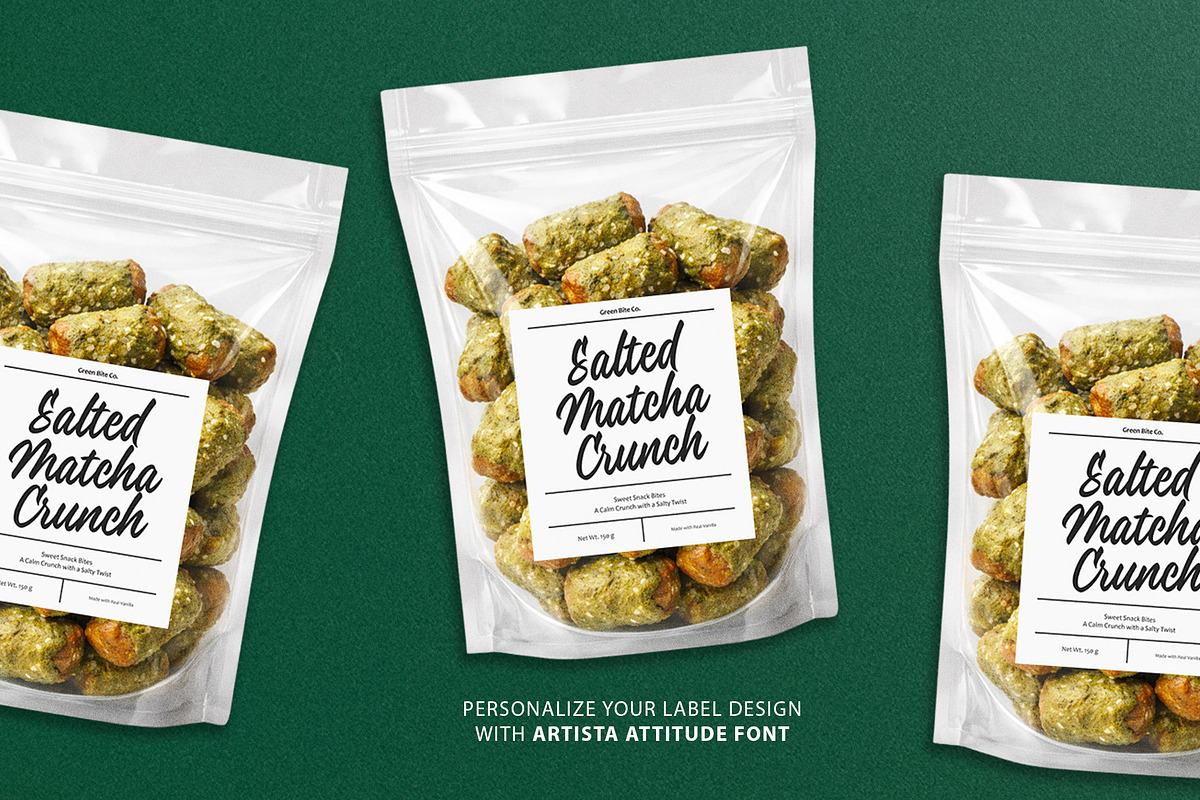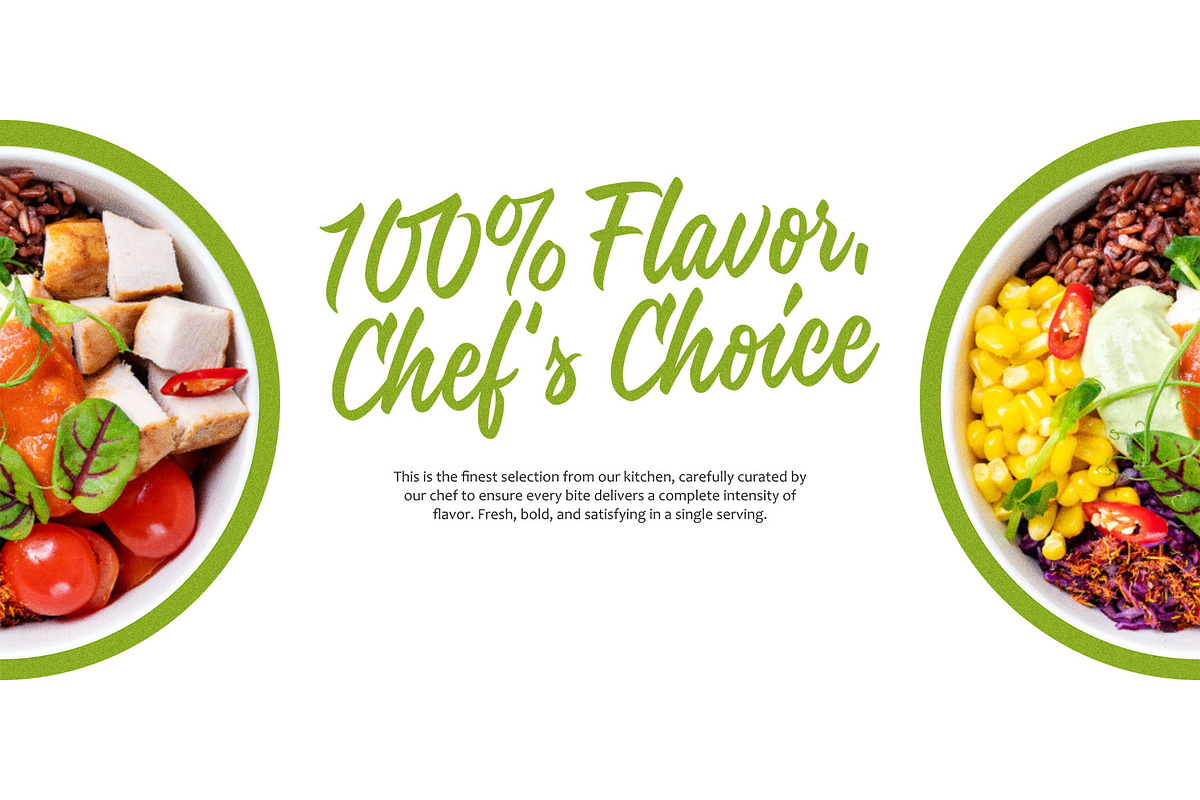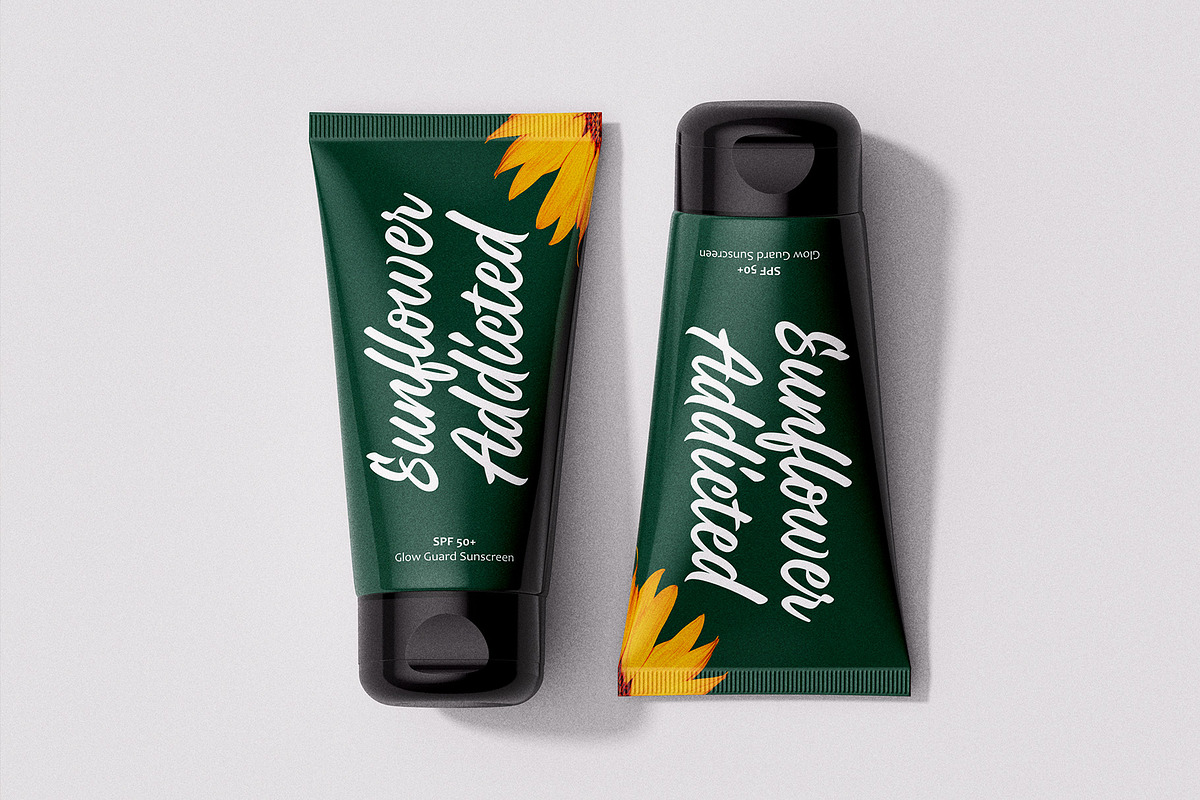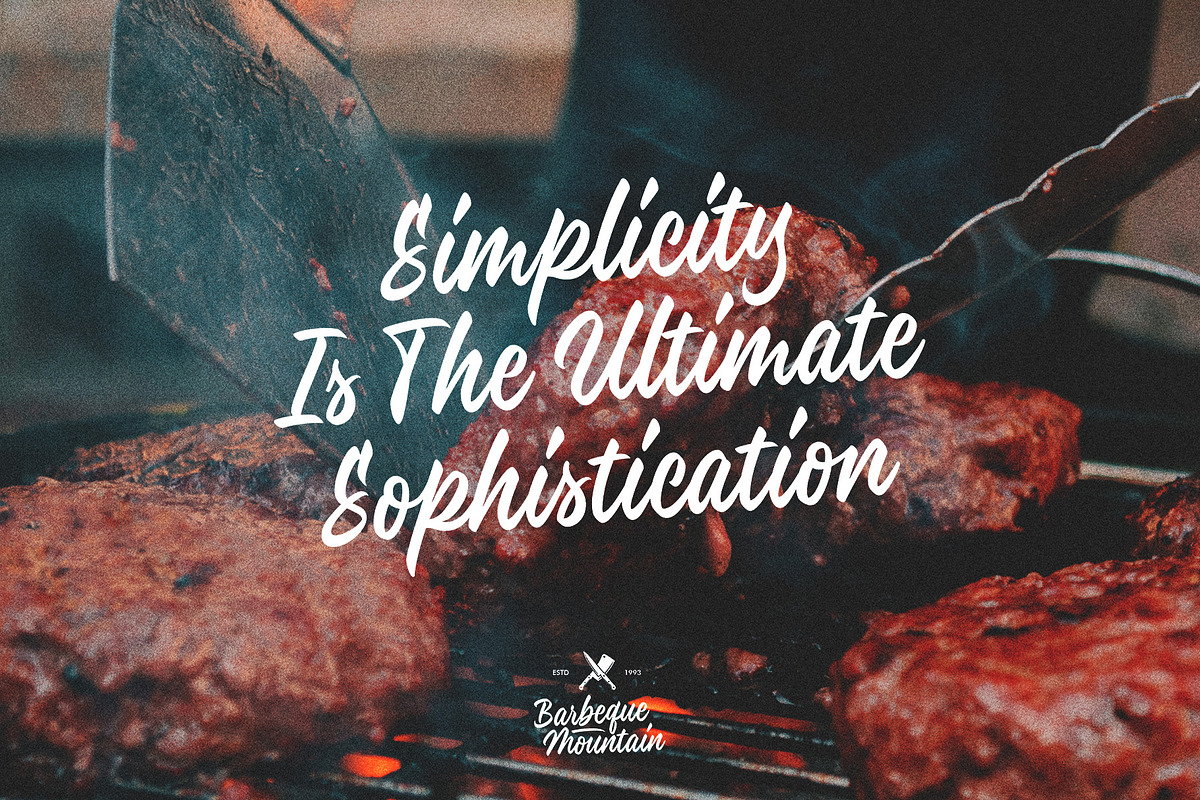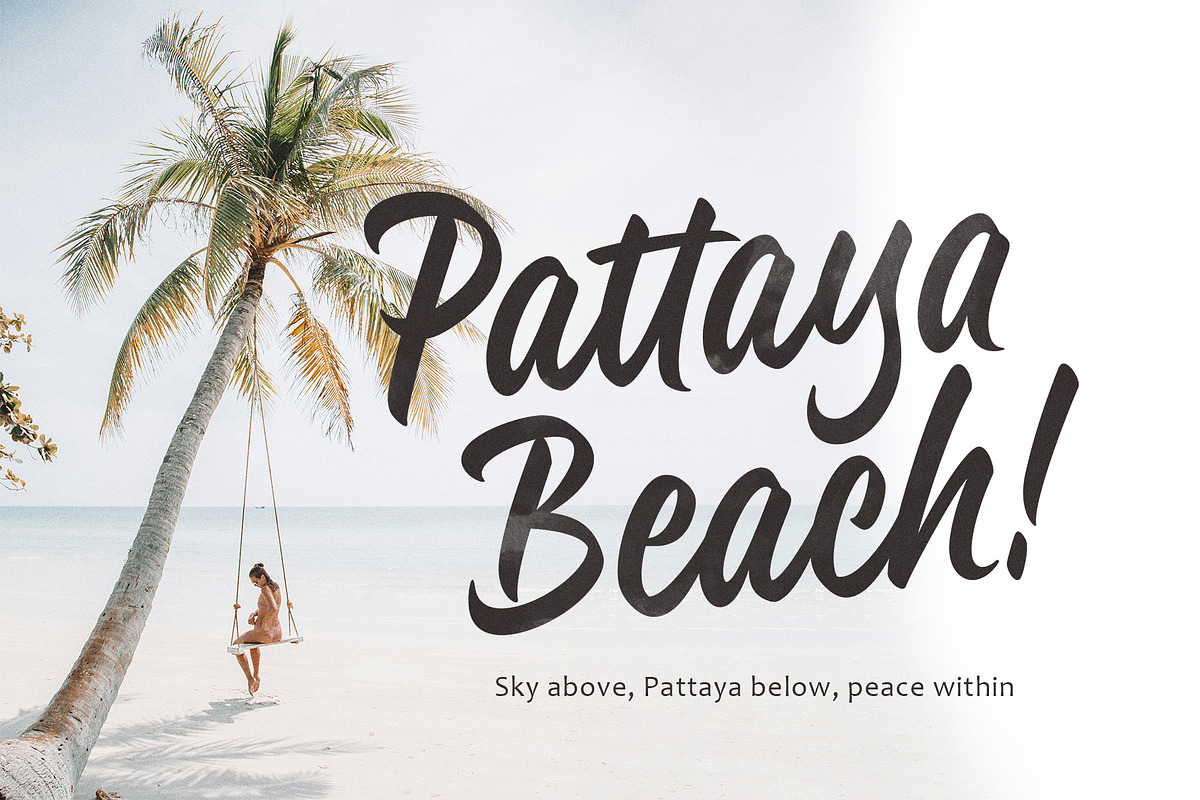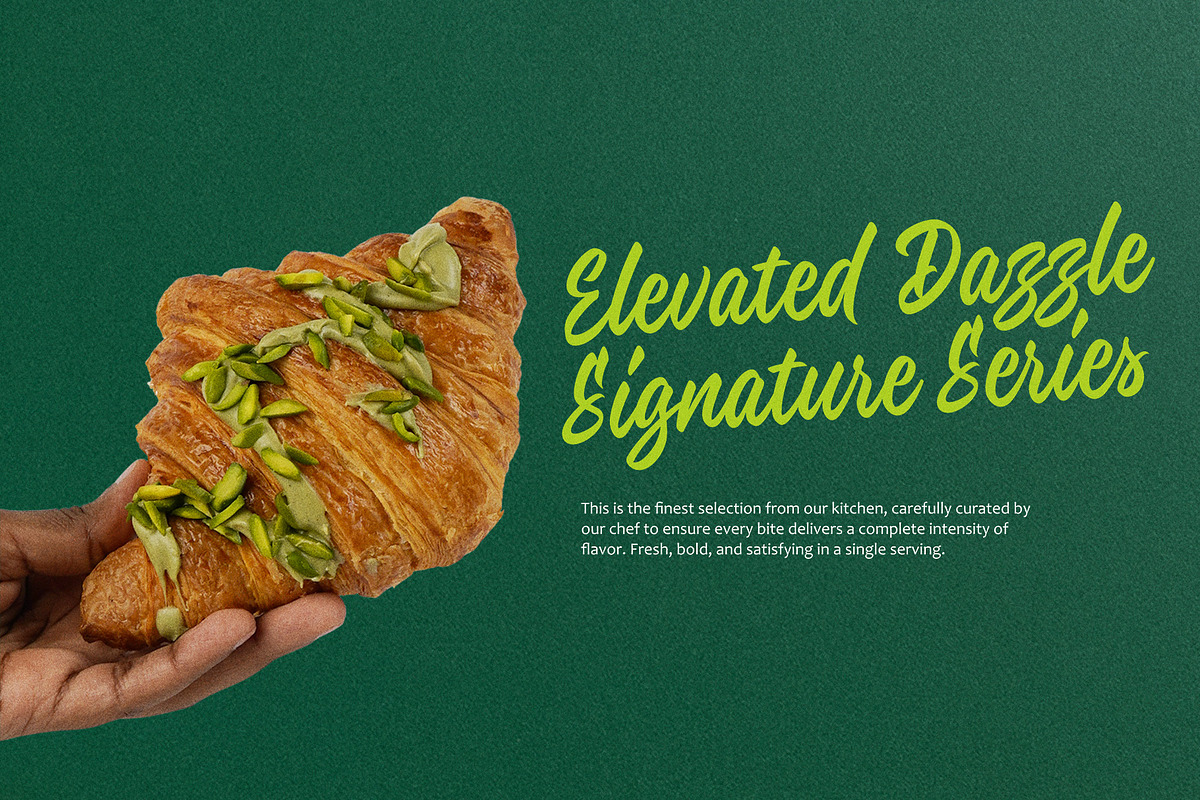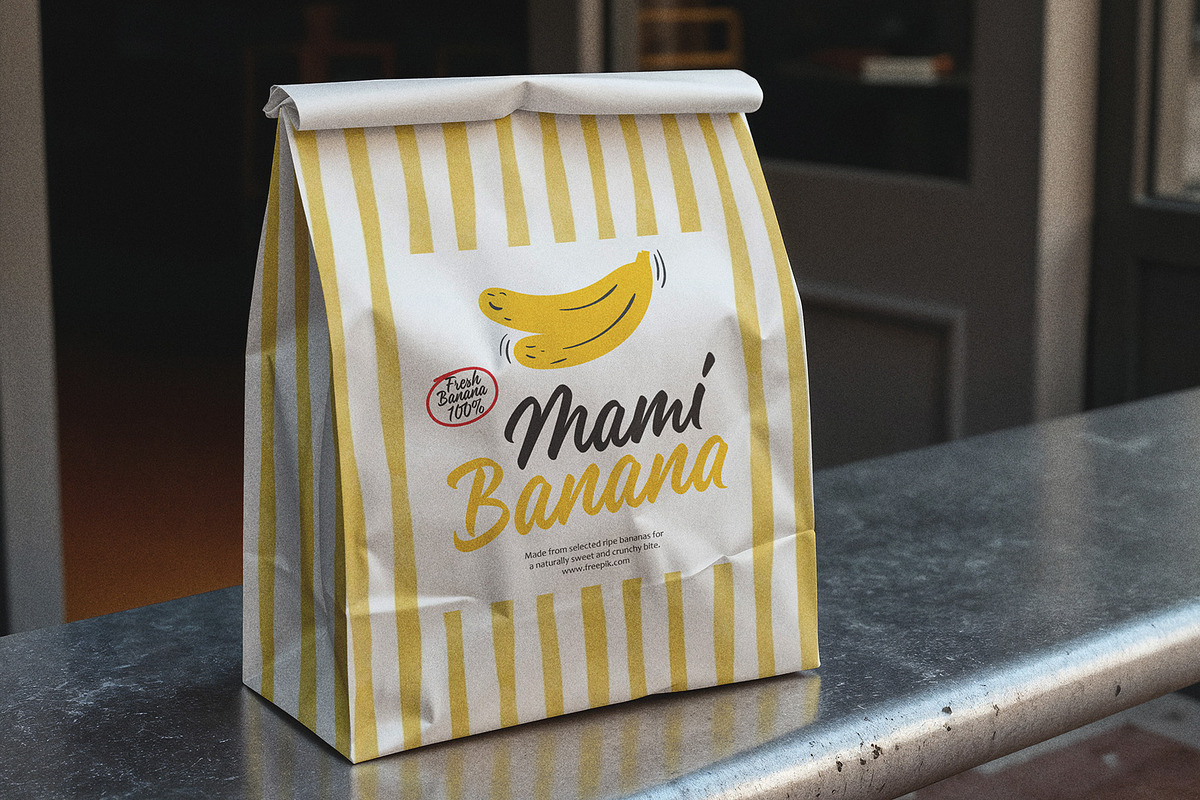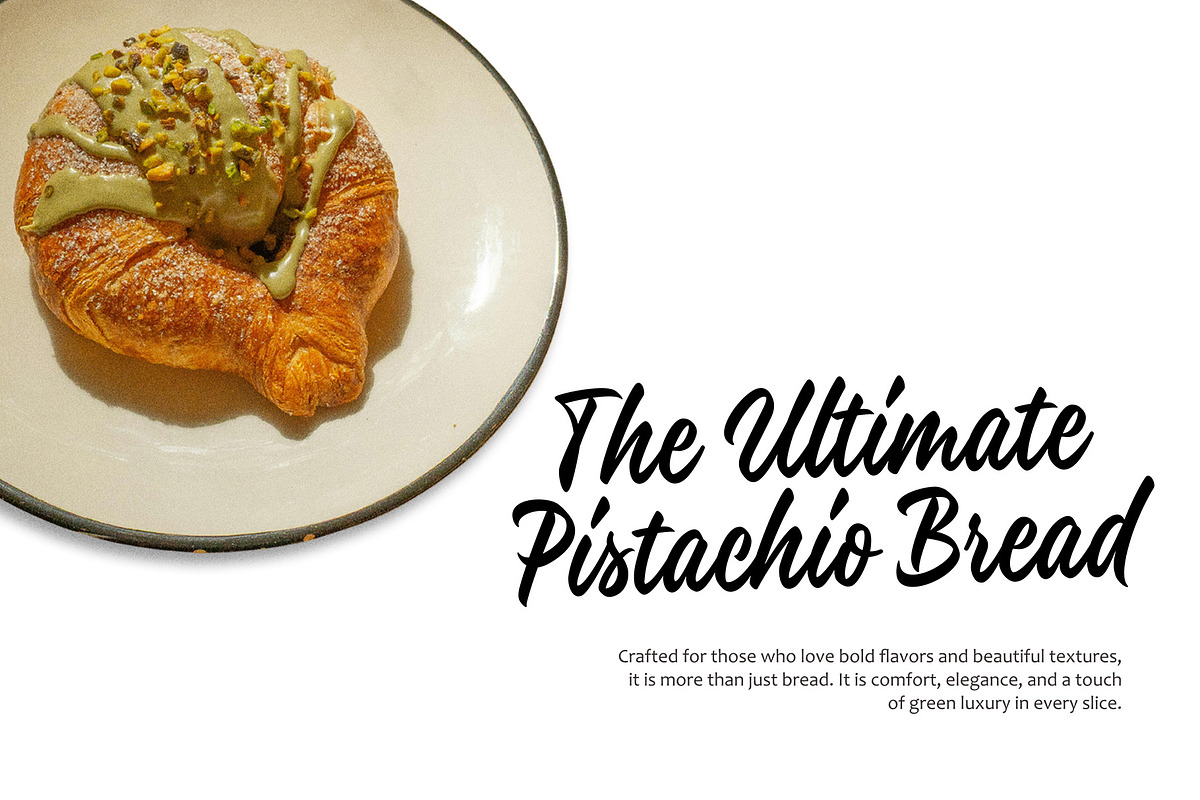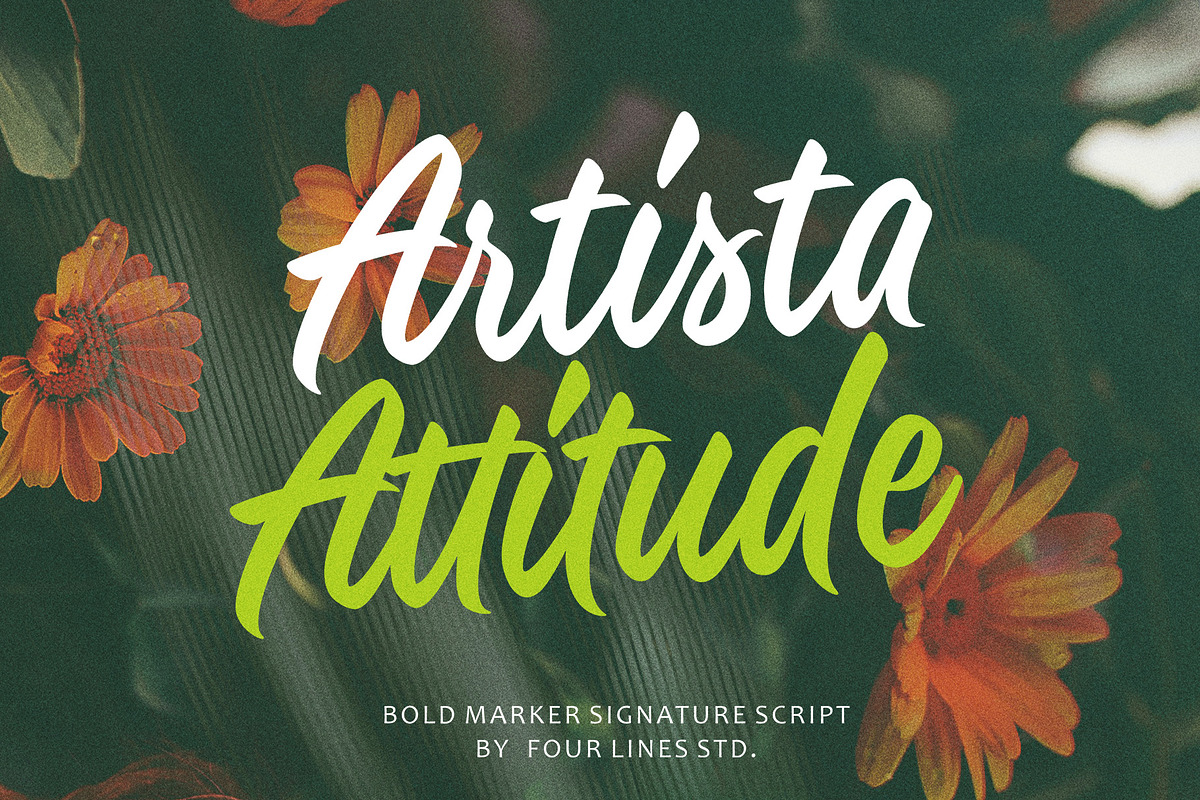
Artista Attitude – Bold Marker Sign
Artista Attitude is a bold marker signature script designed to deliver confident, expressive lettering with a natural handwritten flow. Built with strong strokes and dynamic curves, this typeface captures the energy of modern branding while maintaining a refined and professional appearance.
With its smooth connections and balanced rhythm, Artista Attitude works beautifully for logos, packaging, social media graphics, product labels, editorial headlines, and contemporary lifestyle branding. The thick marker-style strokes create a striking presence, making it ideal for designs that demand personality and visual impact.